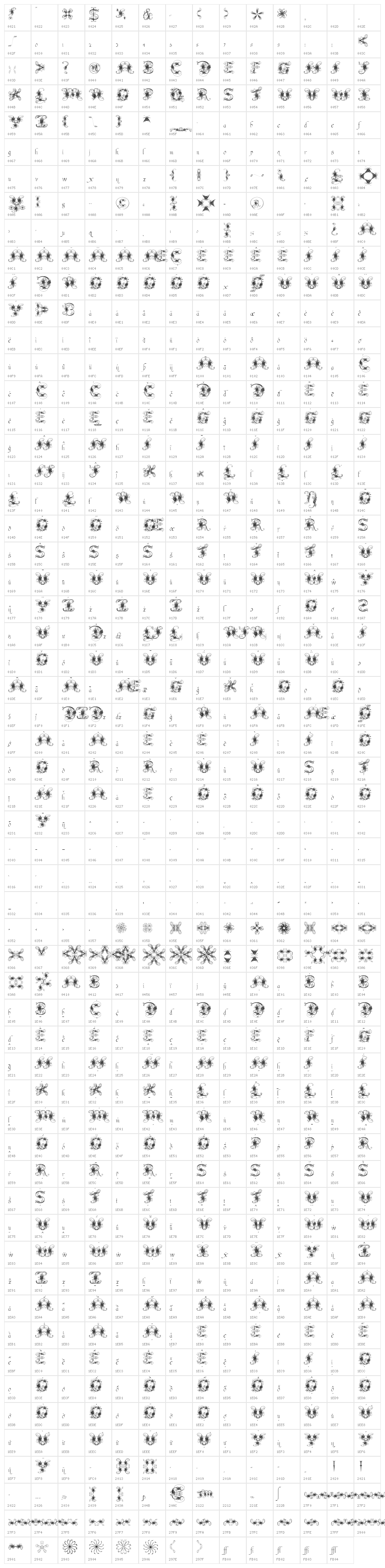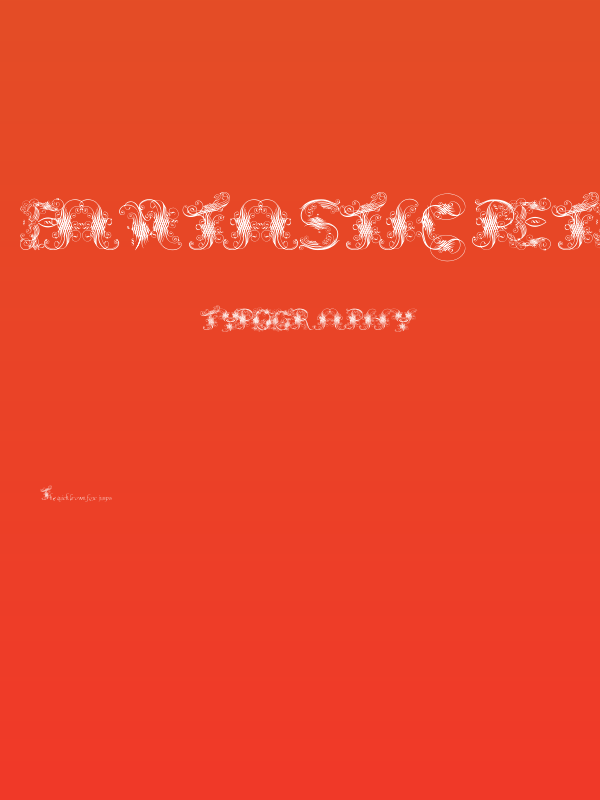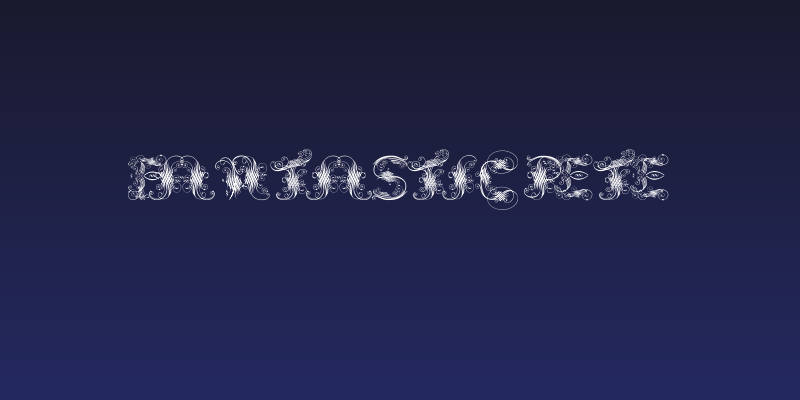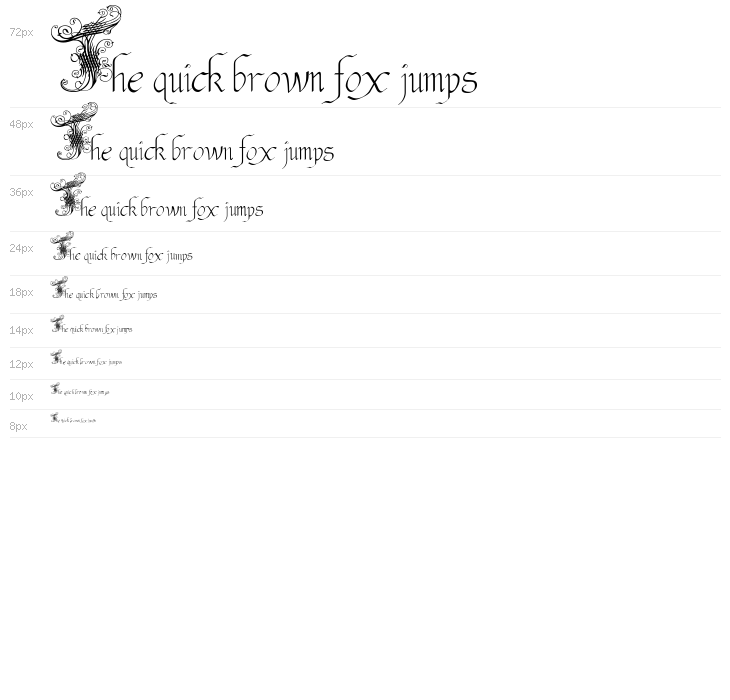
Fantastic Pete Font
Fantastic Pete Description
This font is an intricate and highly decorative typeface that combines ornate flourishes with a classic serif structure. The uppercase letters are particularly elaborate, featuring swirling embellishments that extend from the main strokes, creating a sense of movement and elegance. The lowercase letters maintain a more restrained design, yet still carry a touch of the ornate style seen in the uppercase. Numbers and special characters are similarly adorned, making this font ideal for projects that require a touch of sophistication and artistic flair. The overall appearance is reminiscent of vintage calligraphy, making it suitable for formal invitations, branding, and artistic projects.
| Overall Style | Vintage, Decorative |
| Use Case | Headlines, Logos, Artistic Projects |
| Proposed Projects | Ideal for wedding invitations, luxury branding, artistic posters, and decorative headings. |